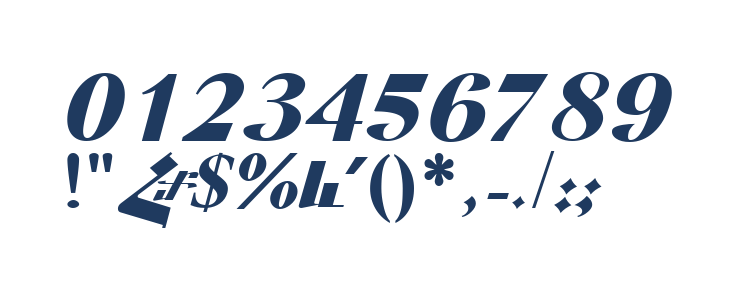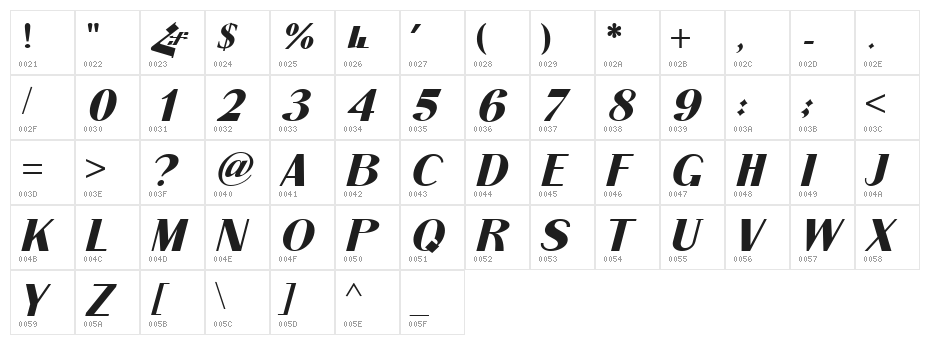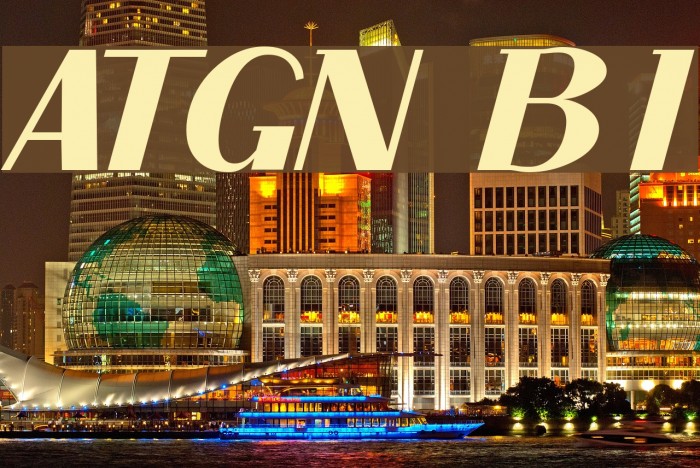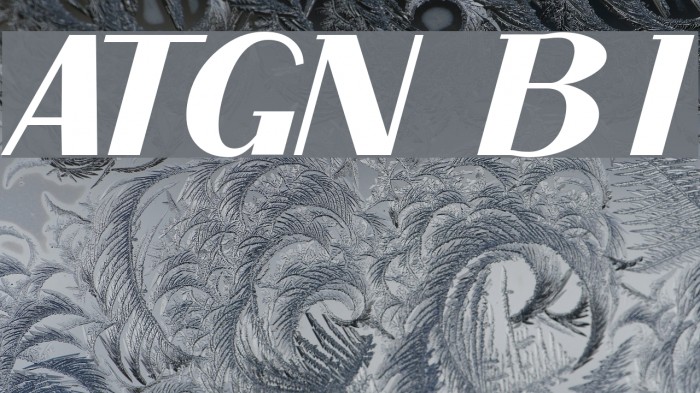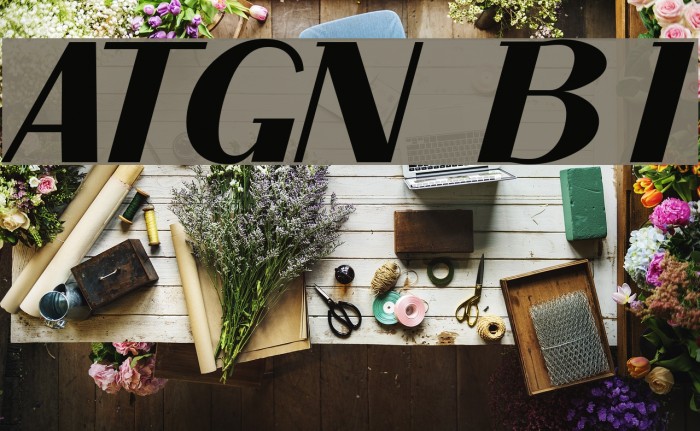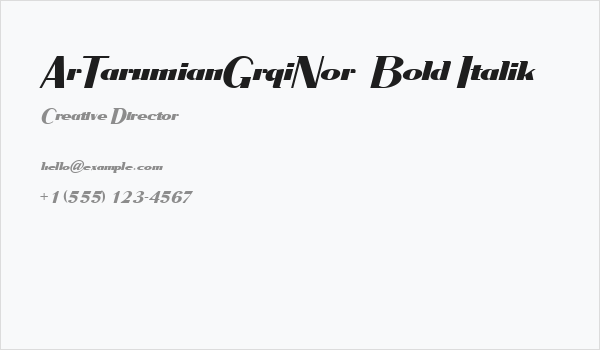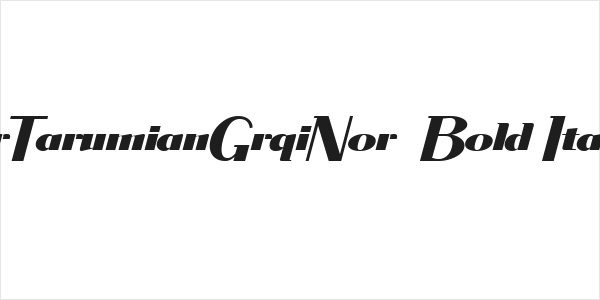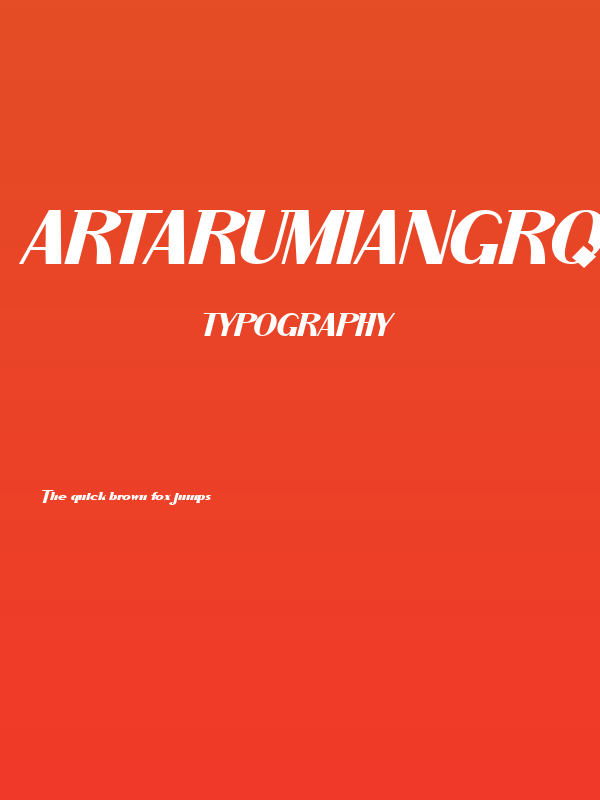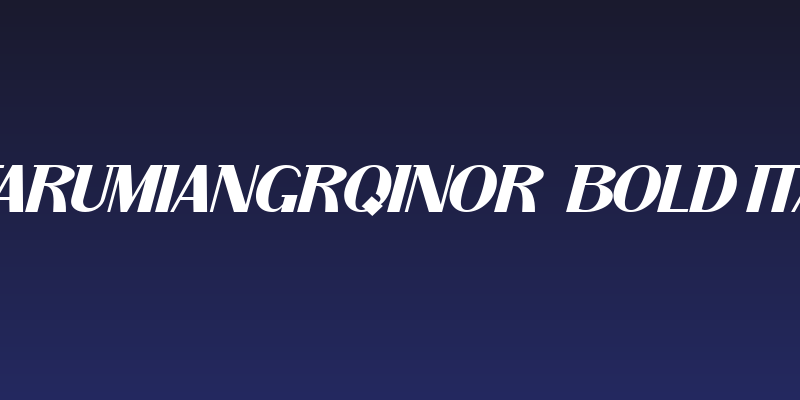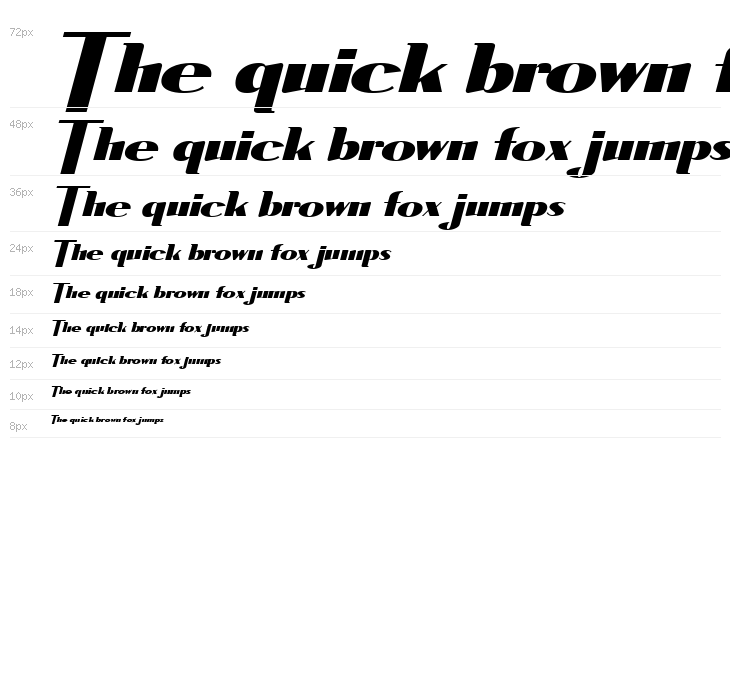
ArTarumianGrqiNor Bold Italik Font
ArTarumianGrqiNor Bold Italik Description
This font features a bold and italicized style, characterized by its strong and dynamic appearance. The uppercase letters are sharply defined with a noticeable slant, giving a sense of movement and urgency. The lowercase letters maintain the same slant, with smooth curves and a consistent stroke width that enhances readability. The numerals are bold and clear, matching the overall aesthetic of the font. Special characters are distinct and maintain the same bold, italicized style, ensuring consistency across all glyphs. This font's design is both striking and versatile, suitable for various creative applications.
| Use Case | Headlines, Logos, Advertising |
| Proposed Projects | Ideal for branding, advertising, headlines, and any project requiring a bold and dynamic typeface. |